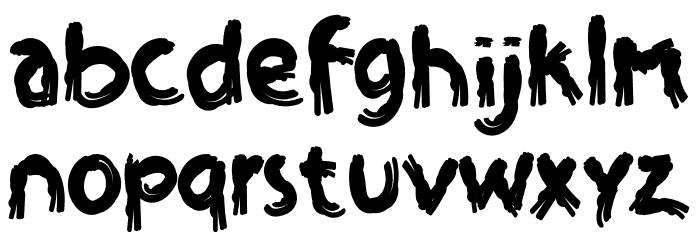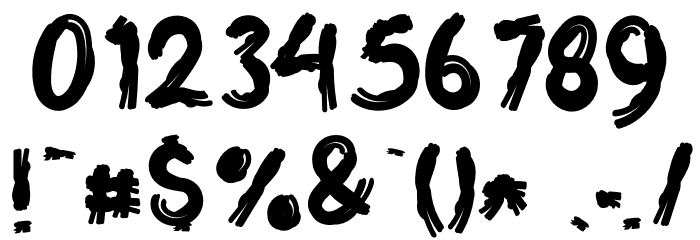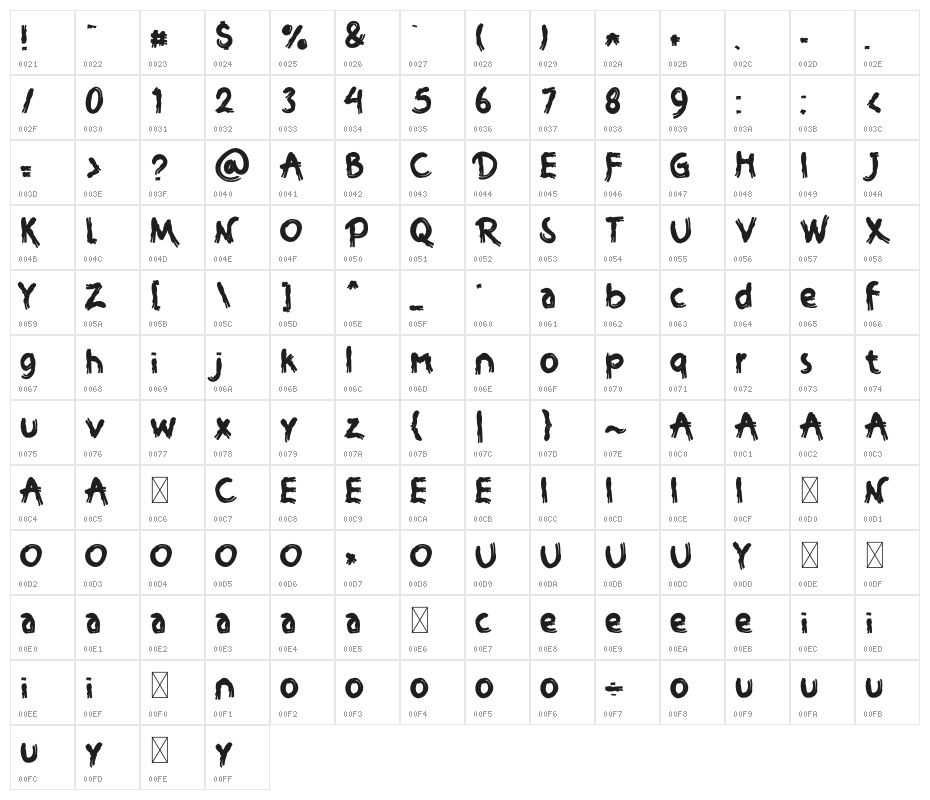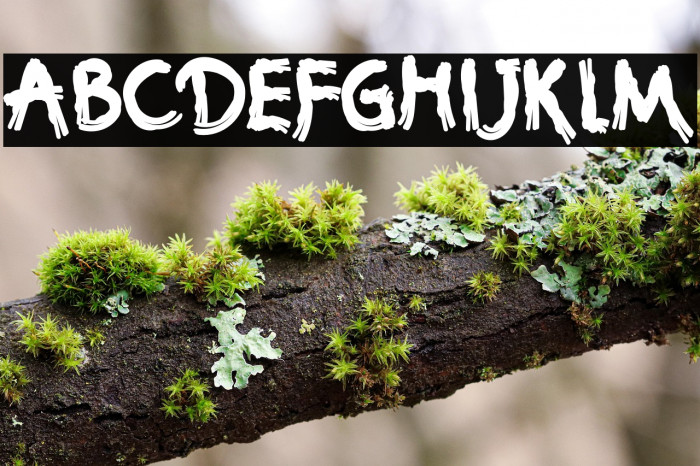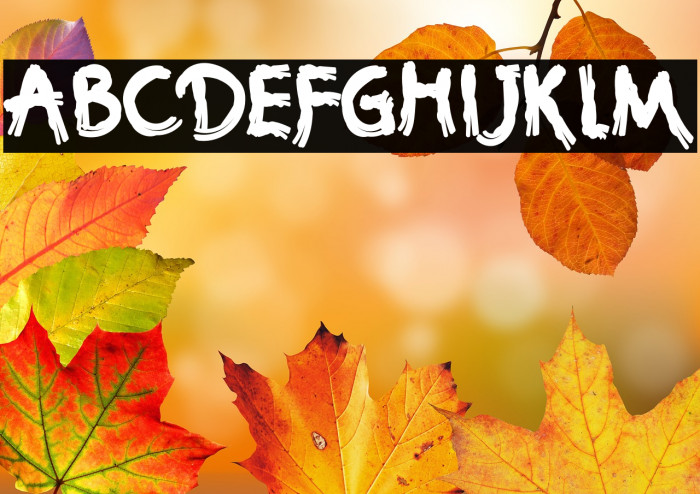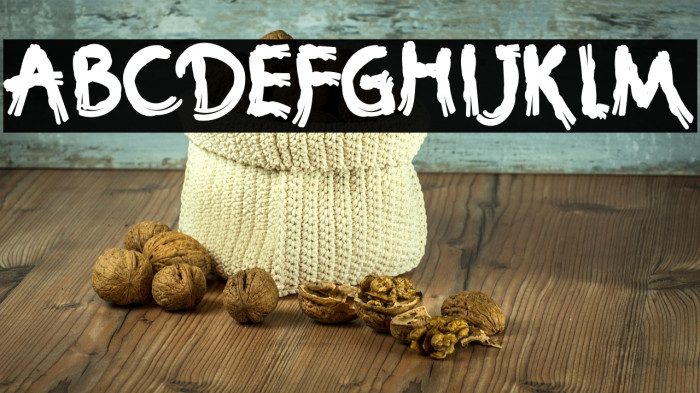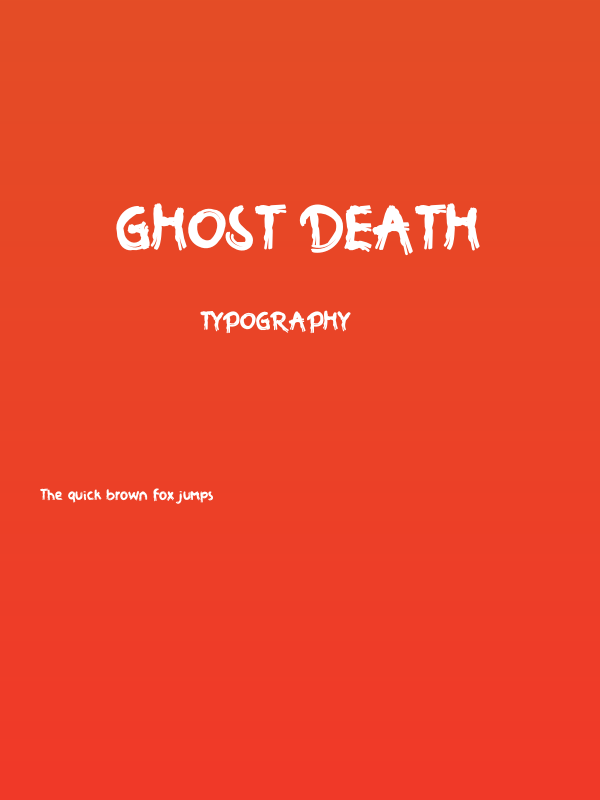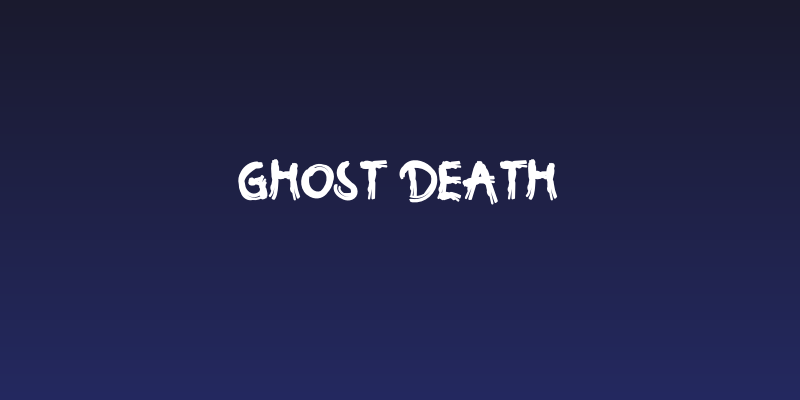
Ghost Death Font
This font features a bold, brush-like appearance with a rough, textured edge that gives it a spooky and eerie feel. The letters are irregular and uneven, resembling hand-painted strokes with a dripping effect, which adds to its ghostly and haunting aesthetic. The uppercase and lowercase characters maintain a consistent style, with exaggerated curves and sharp angles that enhance its dramatic look. The numbers and special characters follow the same design, ensuring a cohesive and thematic appearance throughout. This font is perfect for creating a chilling atmosphere in designs, making it ideal for Halloween-themed projects or anything requiring a touch of horror and mystery.
A bold, brush-style font with a spooky, textured appearance.
- Font: Ghost Death
- Proposed Projects: Ideal for Halloween designs, horror movie posters, themed invitations, and spooky event branding.